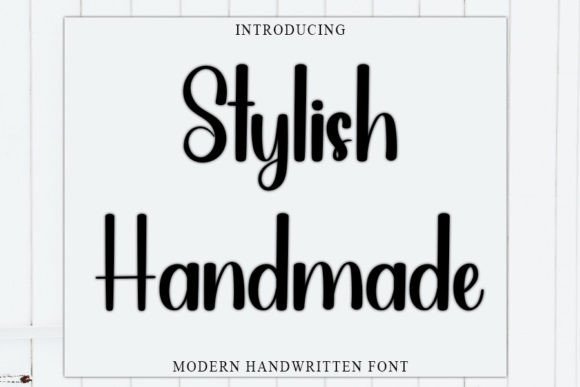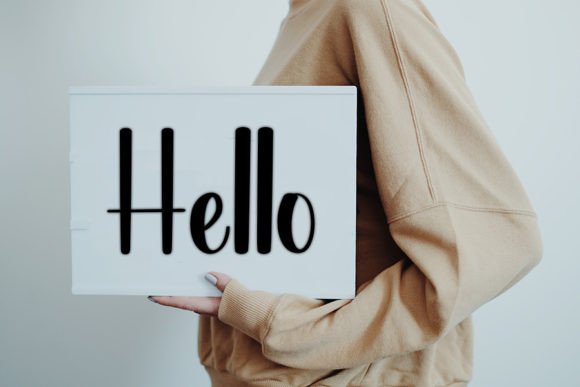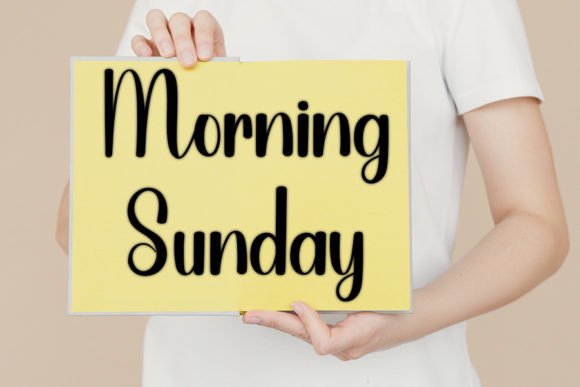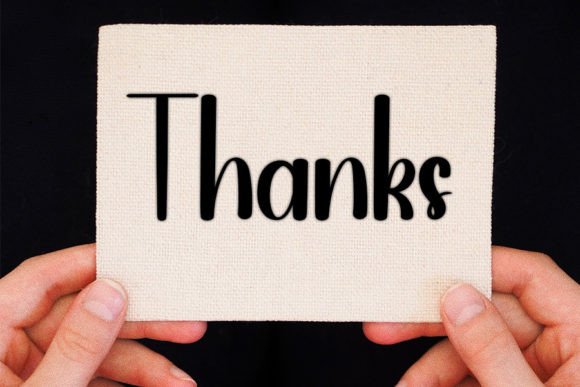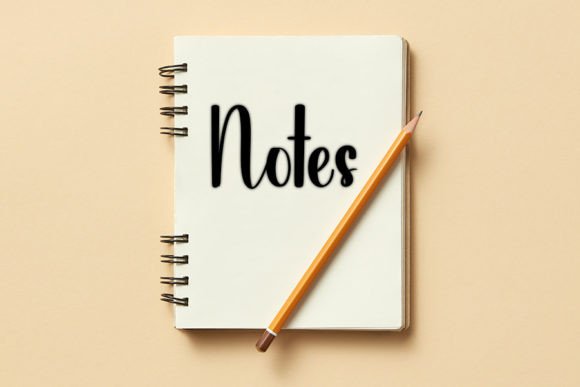
Stylish Handmade Font
Add a Graceful Flair with Stylish Handmade Handwritten Font
The Stylish Handmade Handwritten Font is an elegant and refined script that effortlessly brings beauty, warmth, and sophistication to your designs. With its neat strokes and carefully handcrafted curves, this font combines a timeless style with modern versatility.
Whether you’re designing for weddings, business branding, or personal crafts, Stylish Handmade offers a unique way to express creativity with a delicate, personalized touch.
Ideal for Invitations, Branding, and Social Media
Stylish Handmade is a wonderful choice for projects that demand both elegance and friendliness. It’s perfect for wedding invitations, thank-you cards, event flyers, and gift tags. In branding, the font adds a handcrafted sophistication to logos, product labels, business cards, and packaging.
It also excels in digital projects. Use it in Instagram quotes, Pinterest pins, YouTube thumbnails, and email headers to deliver a clear, polished message with charm.
Elegant Script with a Handmade Feel
What makes the Stylish Handmade Font so appealing is its graceful blend of structured beauty and handwritten character. Each letterform is thoughtfully shaped, giving the font a clean, flowing rhythm. While it mimics traditional handwriting, it maintains the alignment and spacing needed for professional use.
Even in longer texts, Stylish Handmade retains readability without losing its handcrafted charm—making it suitable for both headlines and supporting text.
Reliable for Both Digital and Print Designs
Whether your project is digital or physical, Stylish Handmade delivers top-notch results. It renders beautifully on printed materials like wedding stationery, greeting cards, and merchandise, while remaining crisp and stylish on websites, social media, and mobile screens.
For visual balance, pair it with a clean serif or sans-serif font. This contrast allows the handwritten script to shine while maintaining harmony in your design.
Why Designers Choose Stylish Handmade Handwritten Font
Here are the top reasons this font is a favorite:
• Beautiful, neat handwritten design
• Combines timeless elegance with a personal touch
• Perfect for both print and digital use
• Highly readable at all sizes
Create with Sophistication and Style
In conclusion, the Stylish Handmade Handwritten Font is the perfect addition to any designer’s toolkit. Its graceful curves, neat lines, and refined character make it a standout choice for everything from wedding suites to brand identities.
If you’re searching for a font that delivers elegance, warmth, and versatility, Stylish Handmade is the font to make your creative projects truly unforgettable.